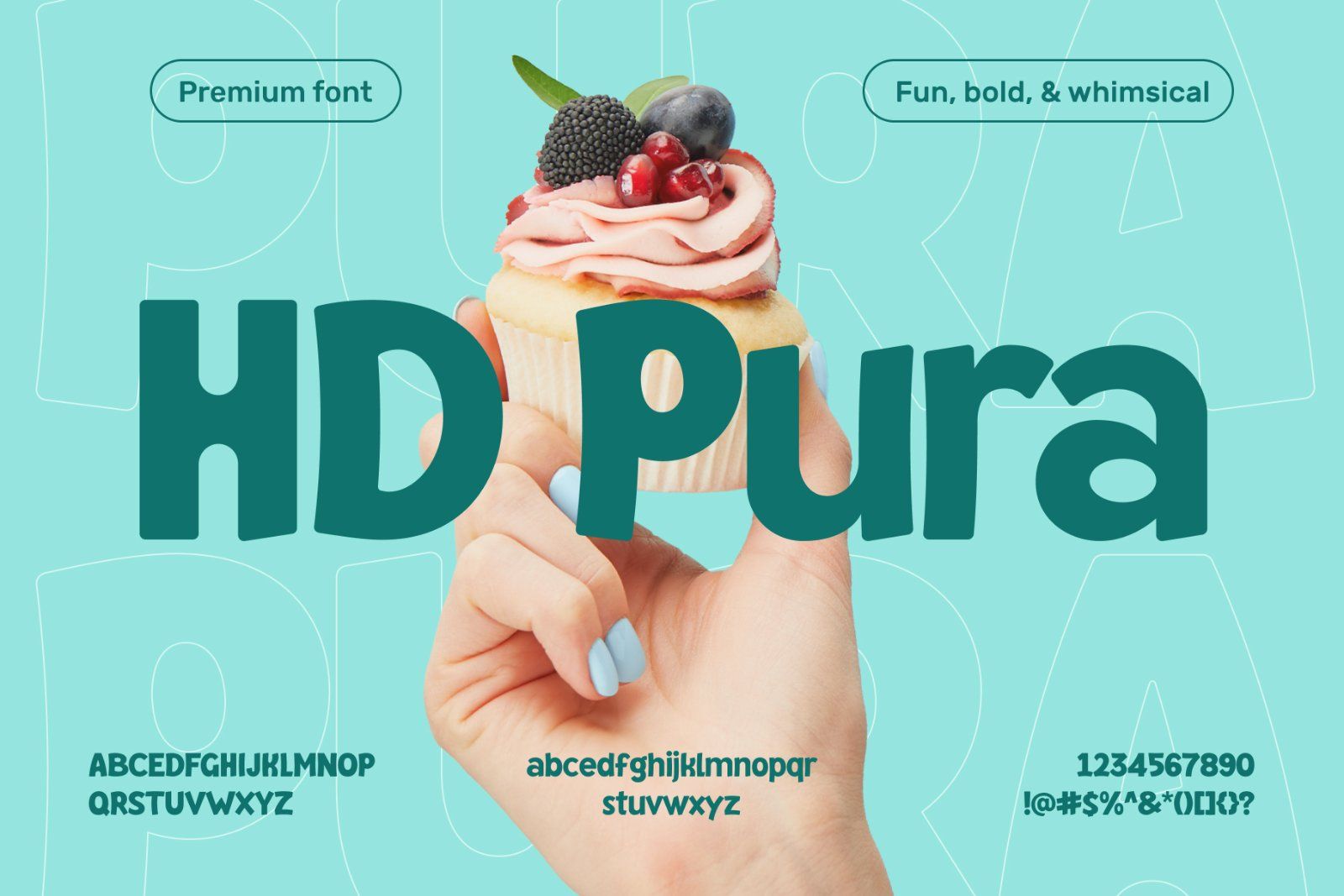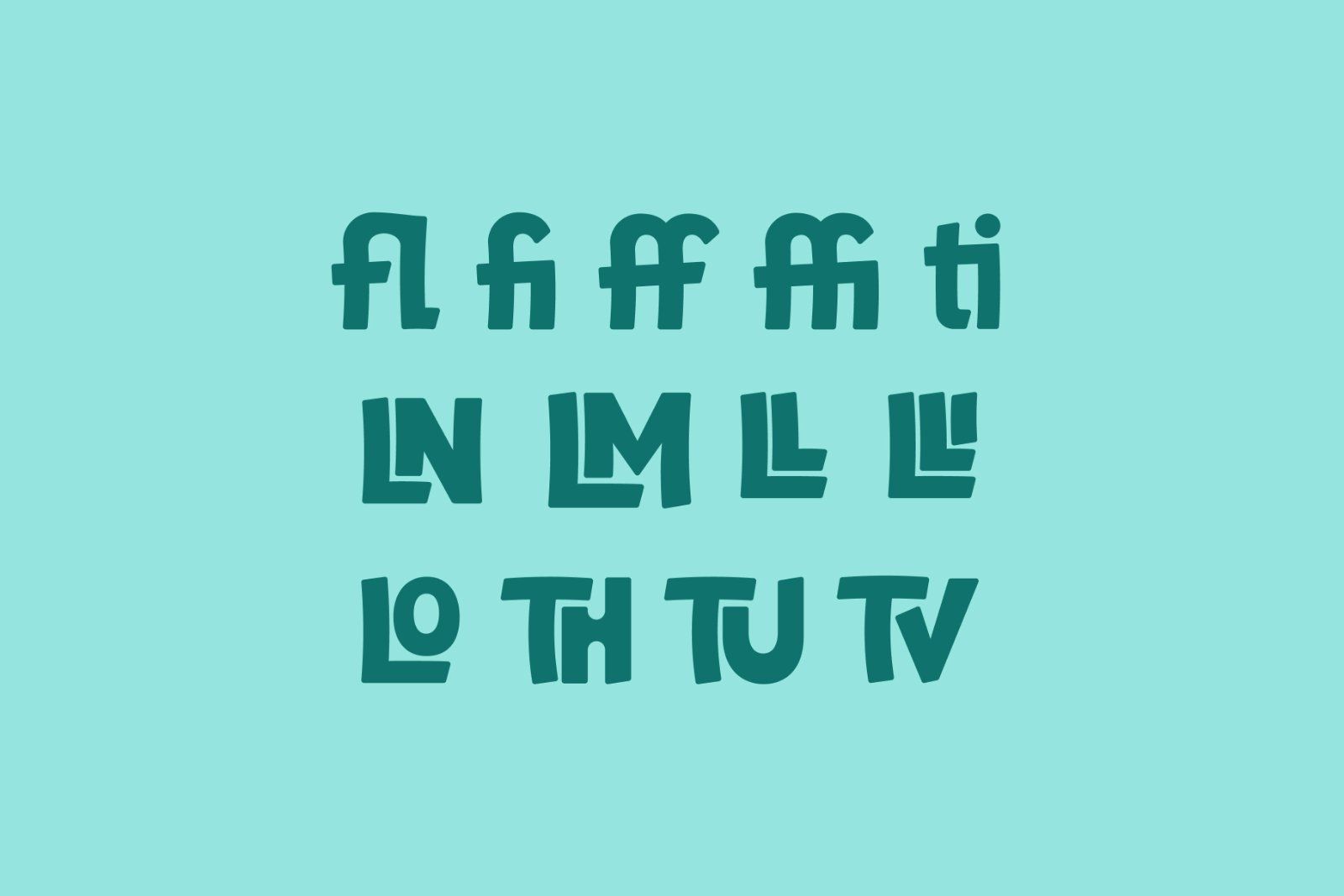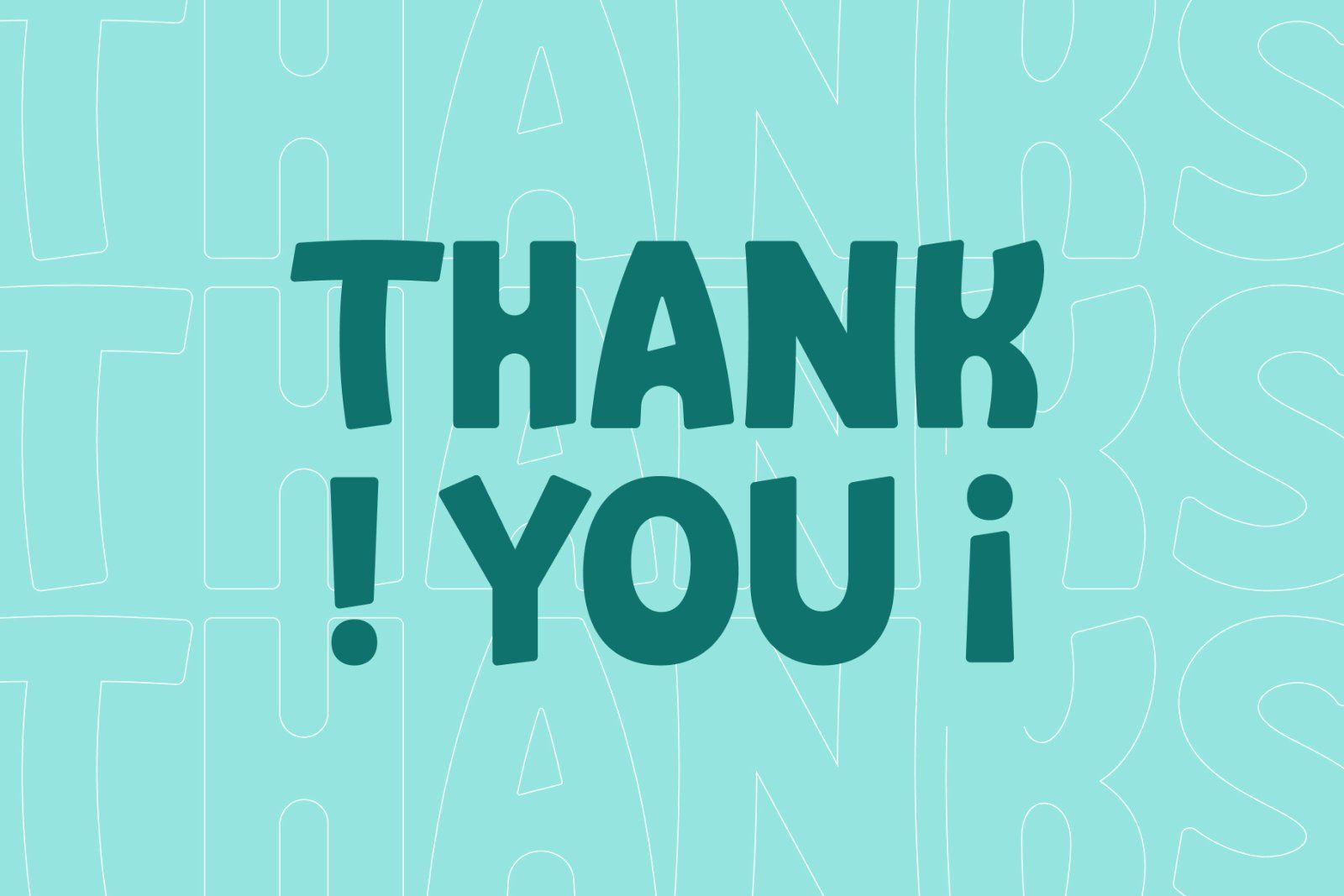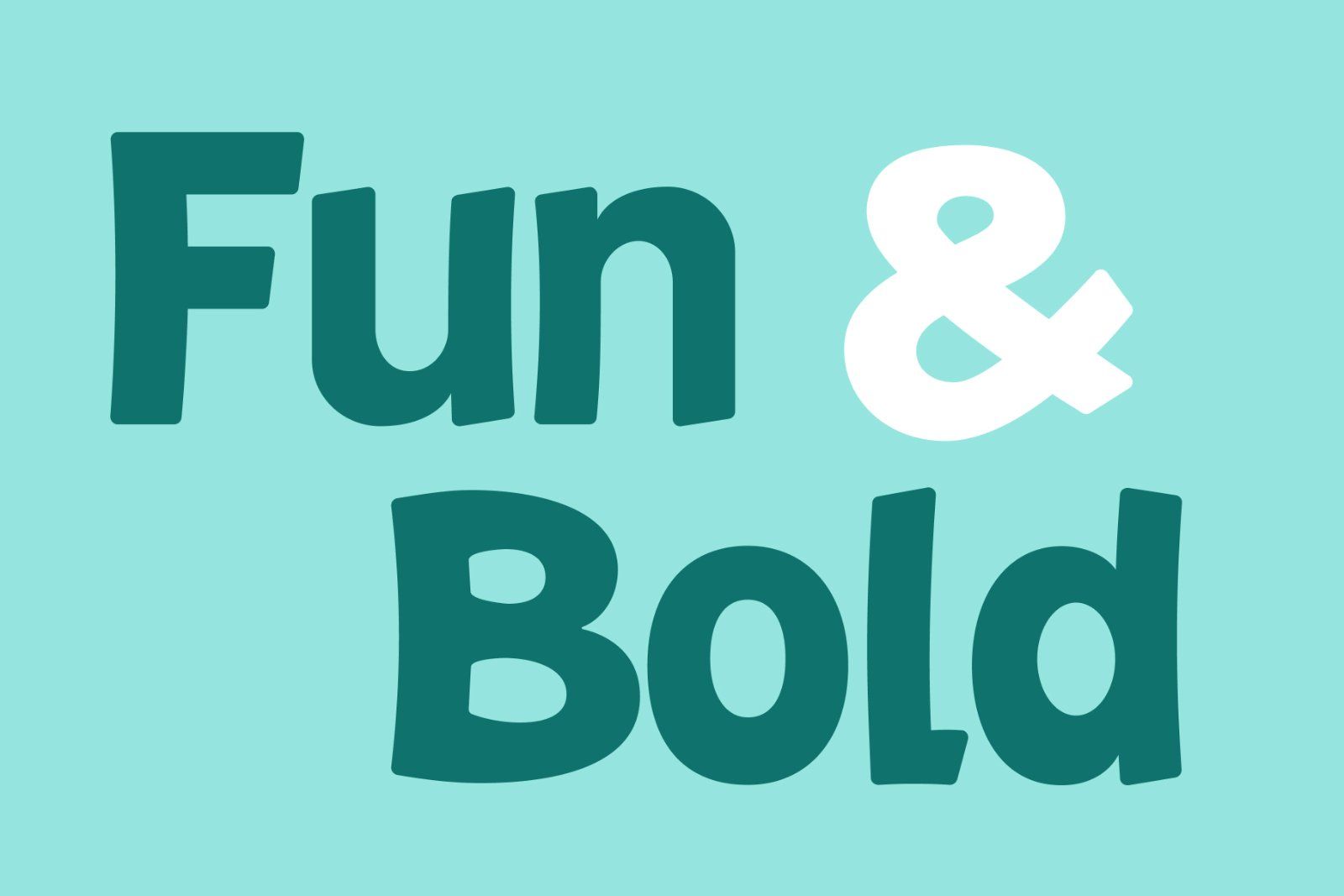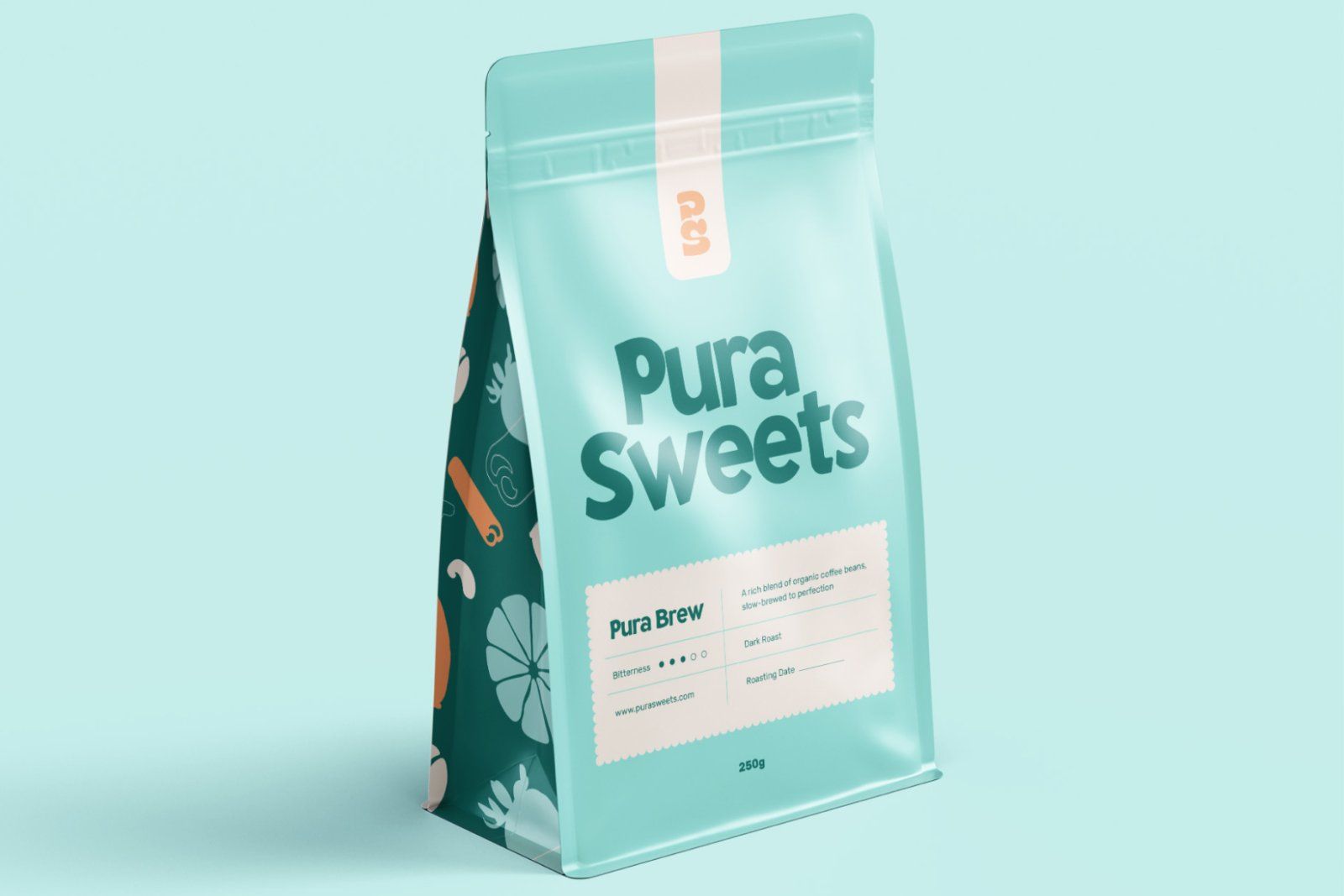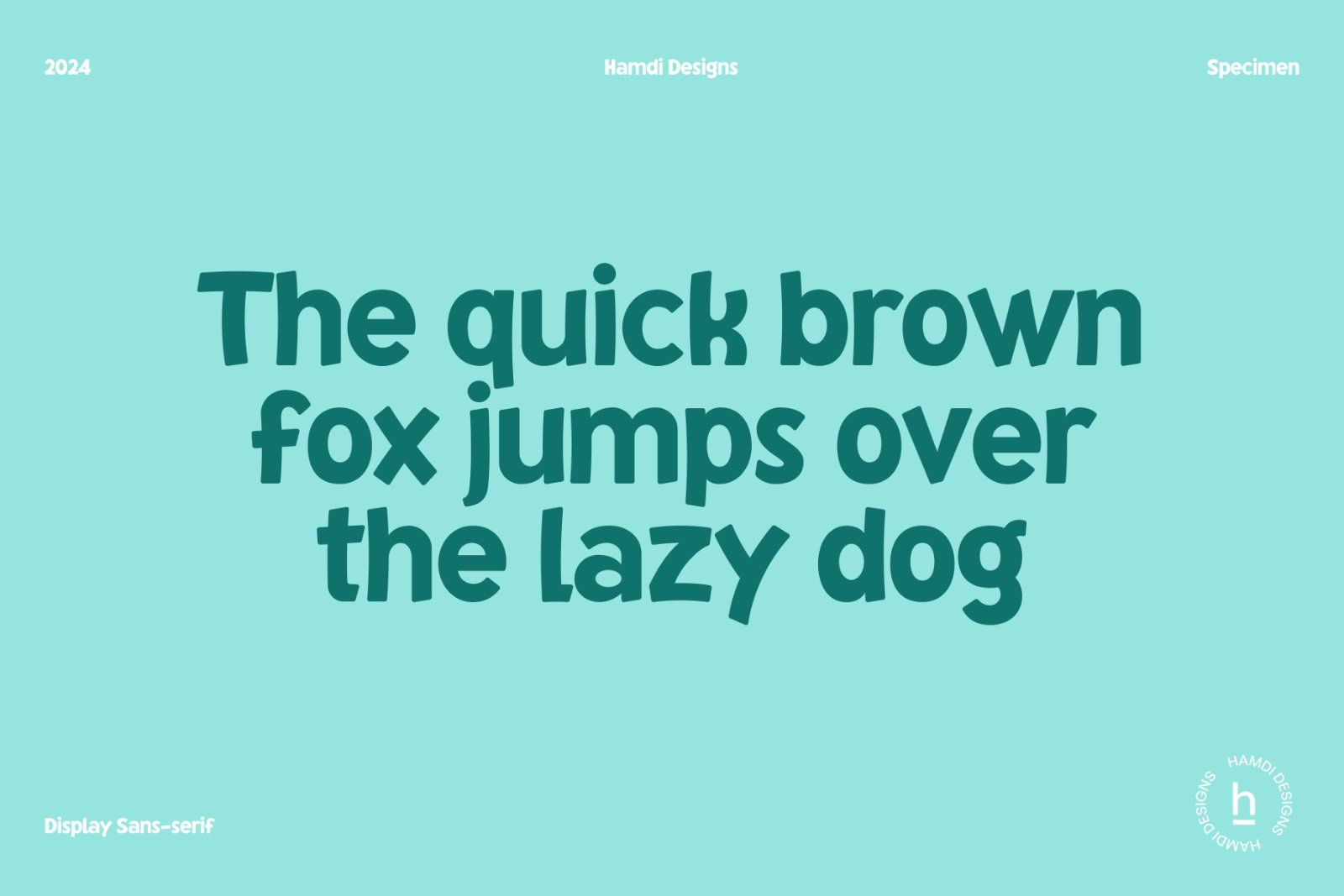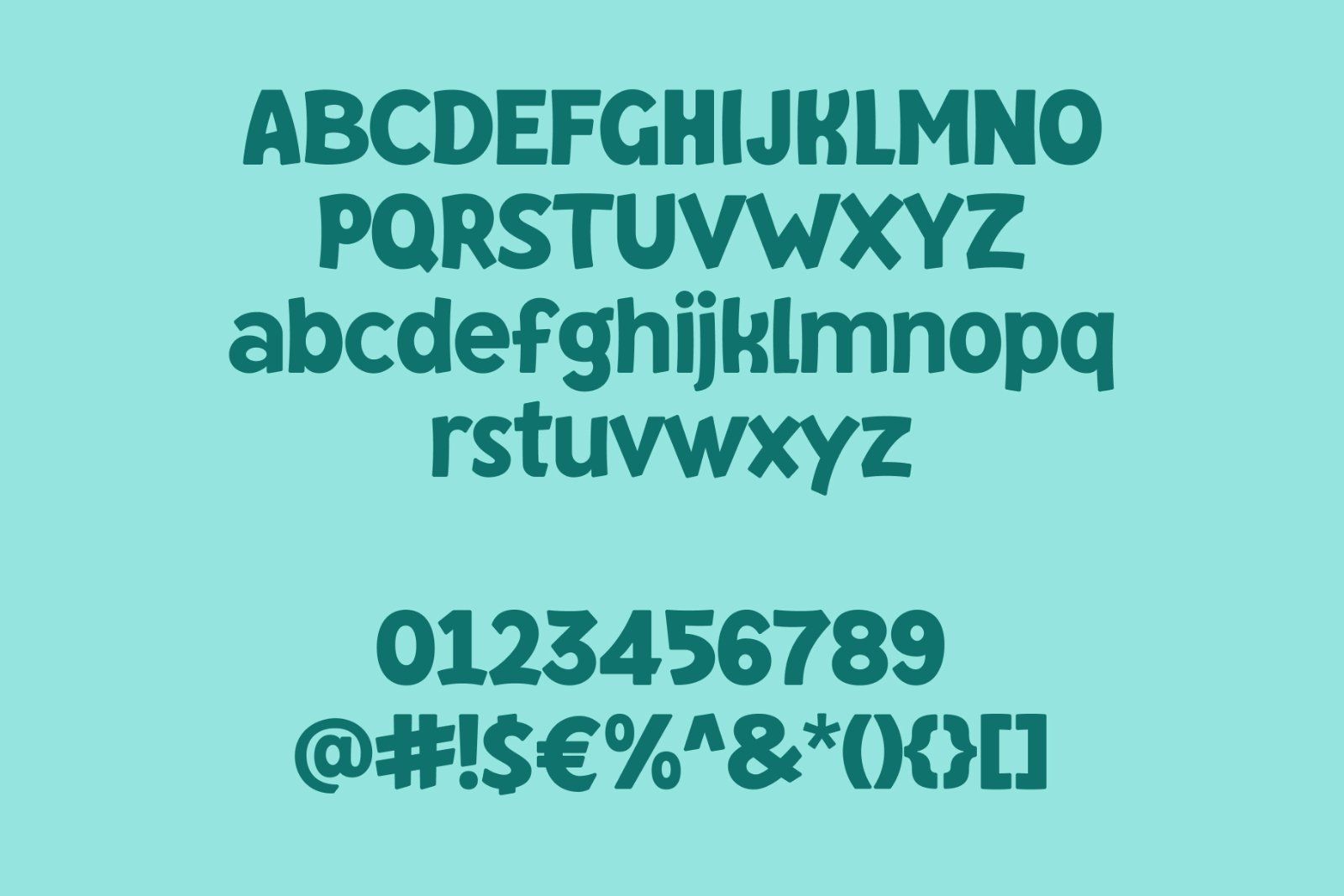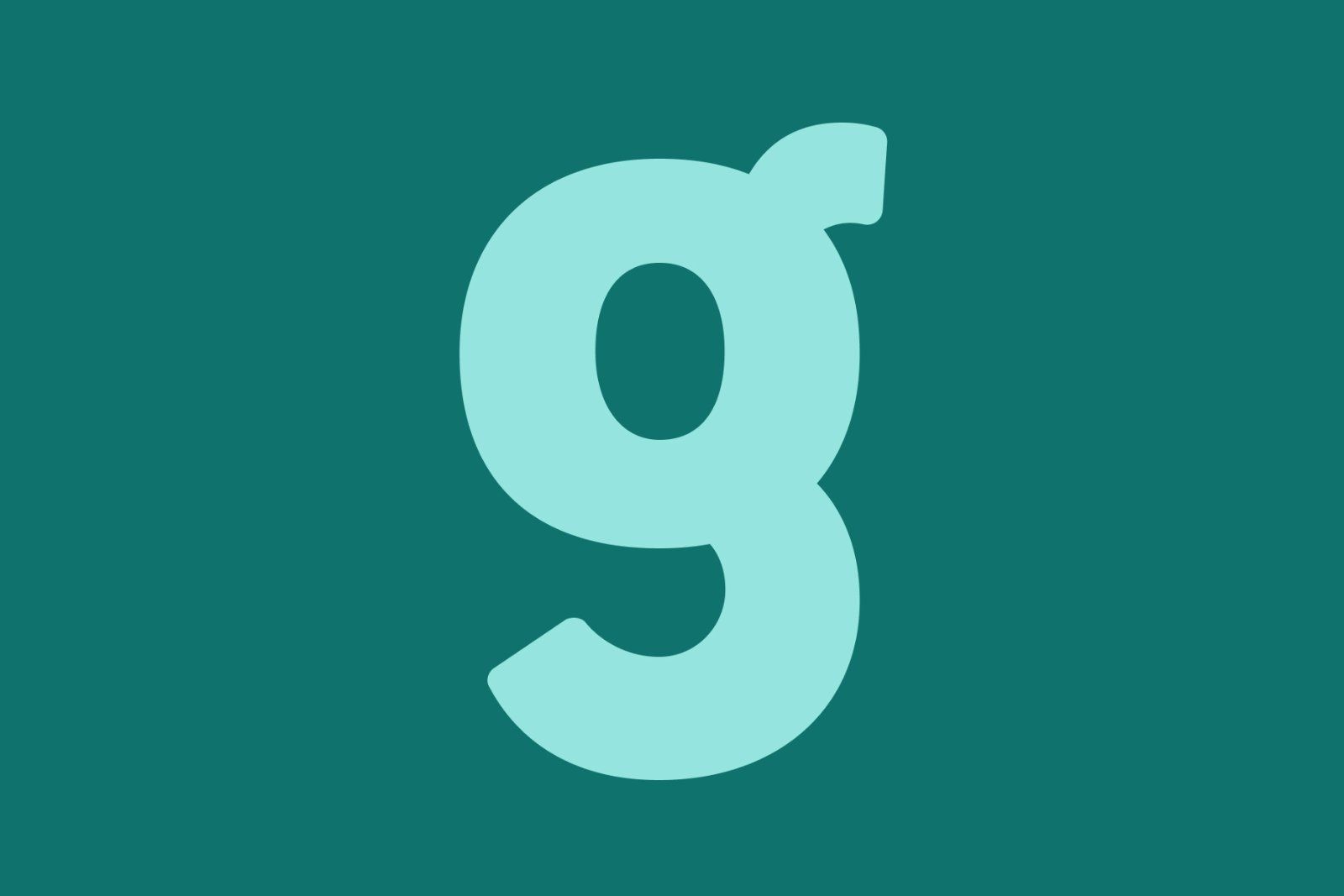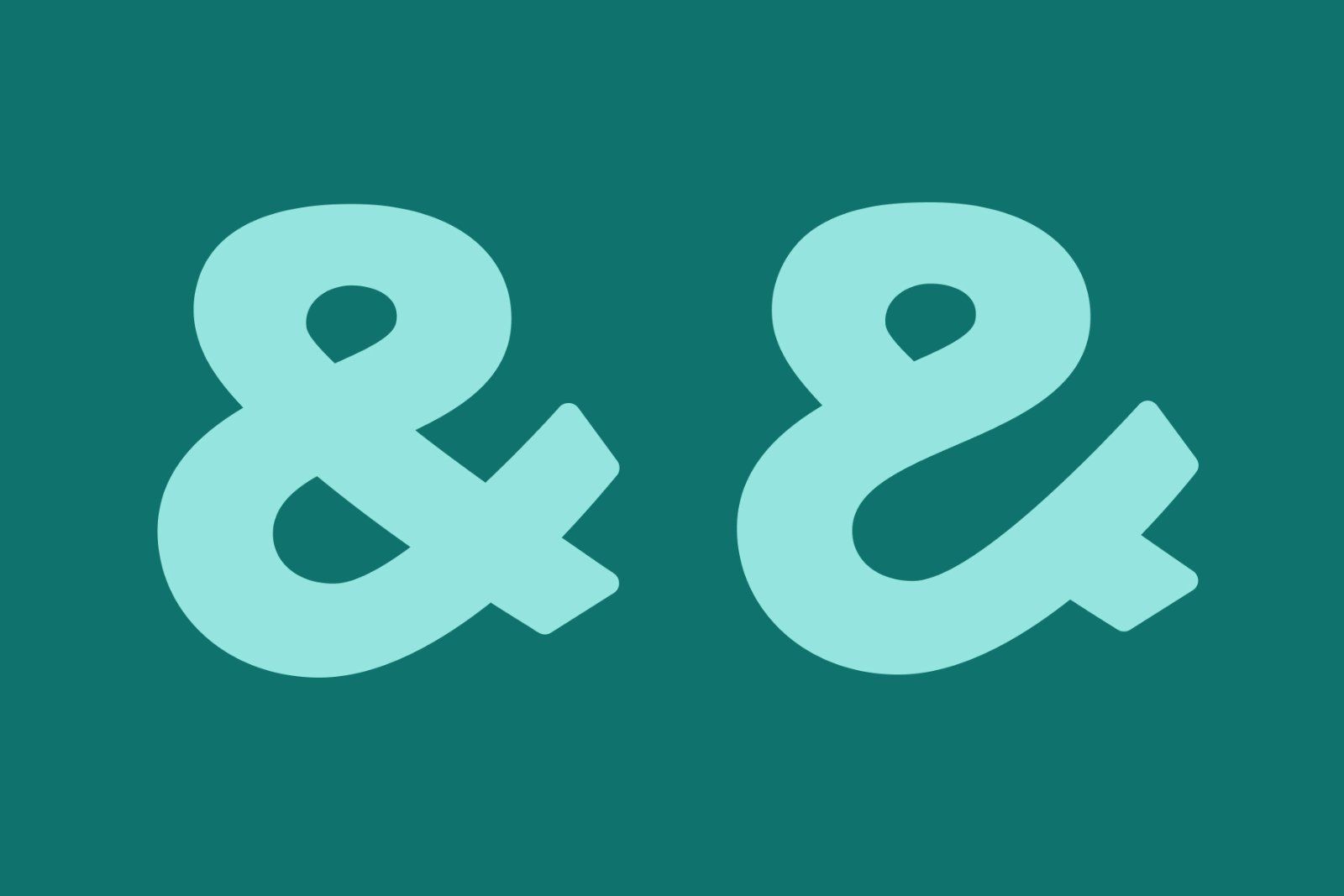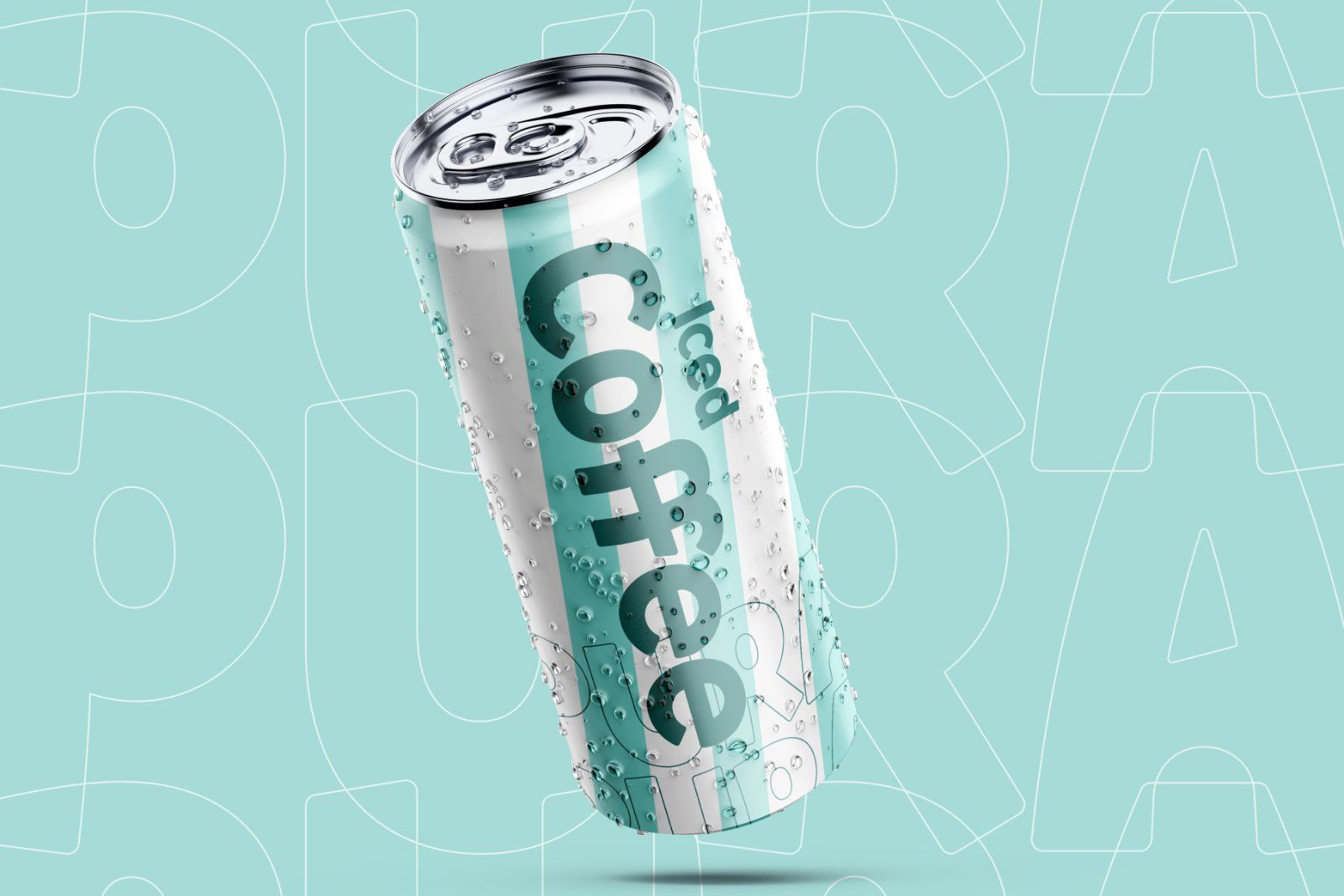
HD Pura: Your Go-To Font for Fun and Bold Designs!
Looking to add a splash of playfulness to your brand identity? Meet HD Pura, the display font that brings fun and boldness to your designs. Perfect for large titles, HD Pura is your best bet for a modern and lively look.
We’ve designed HD Pura with round corners to give it a friendly and approachable vibe. It’s easy on the eyes and adds a touch of whimsy without being too serious.
What’s Inside?
• Upper and lower case letters
• Numbers and symbols
• Ligatures and alternative letters for extra flexibility